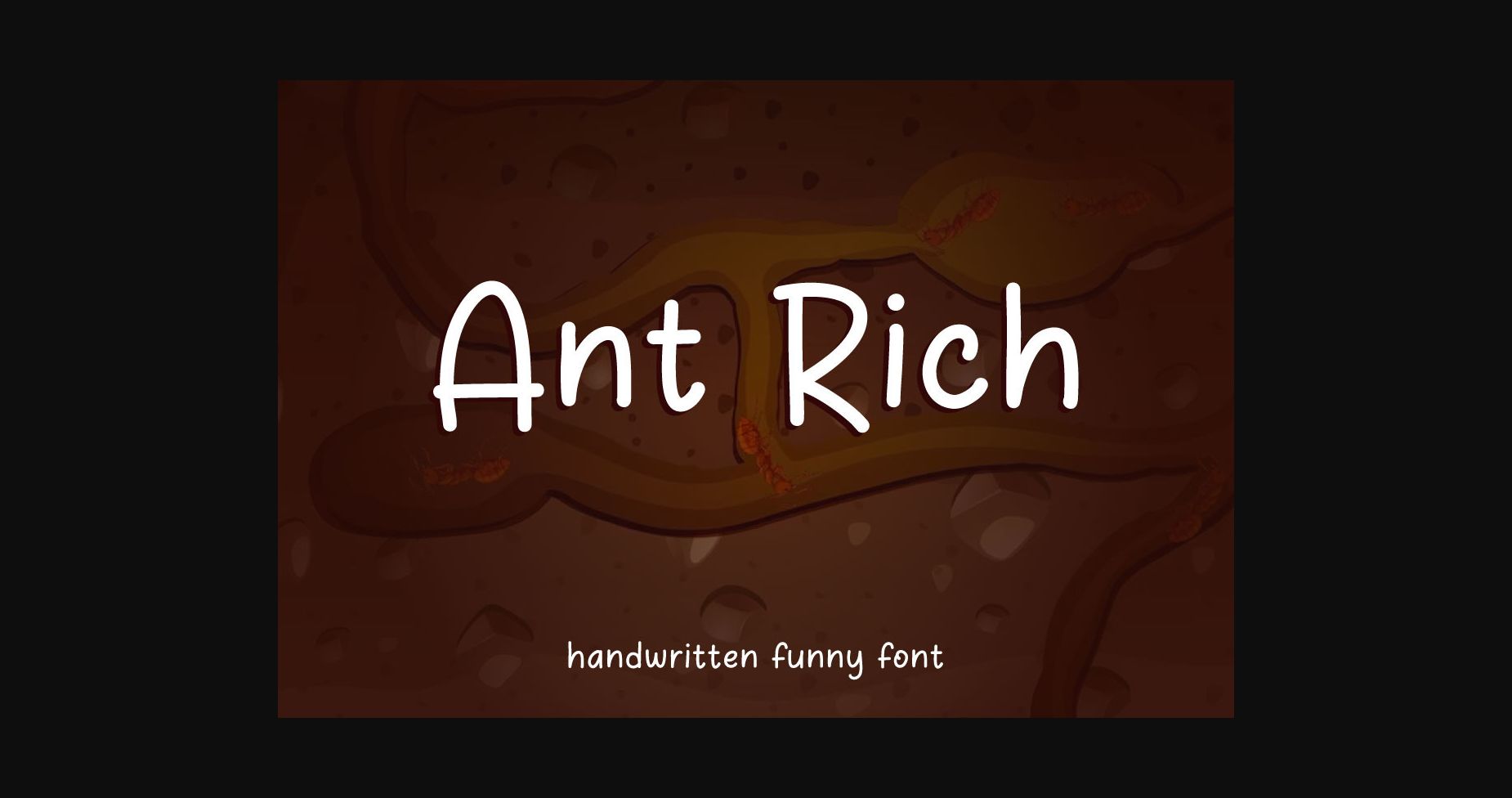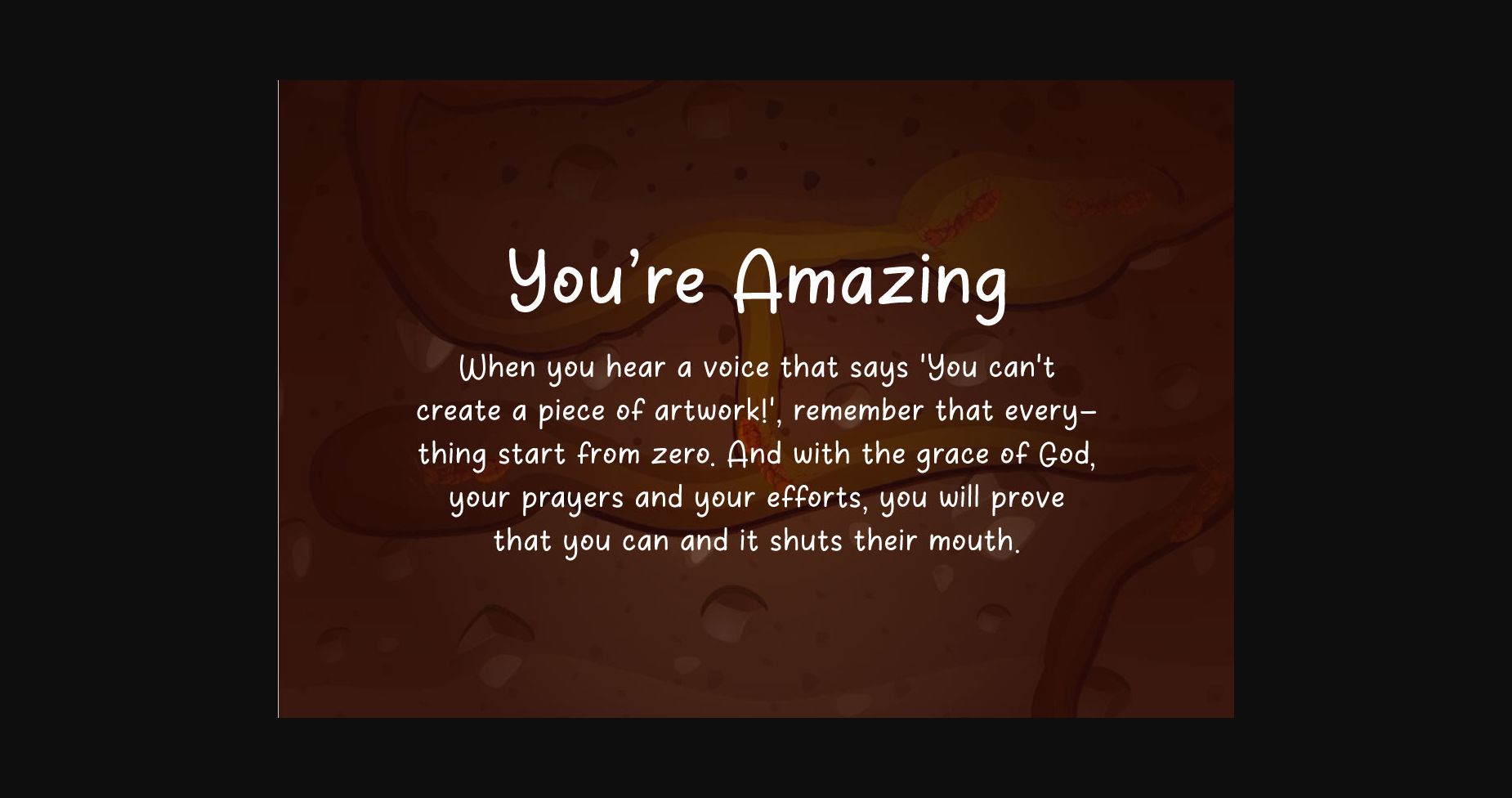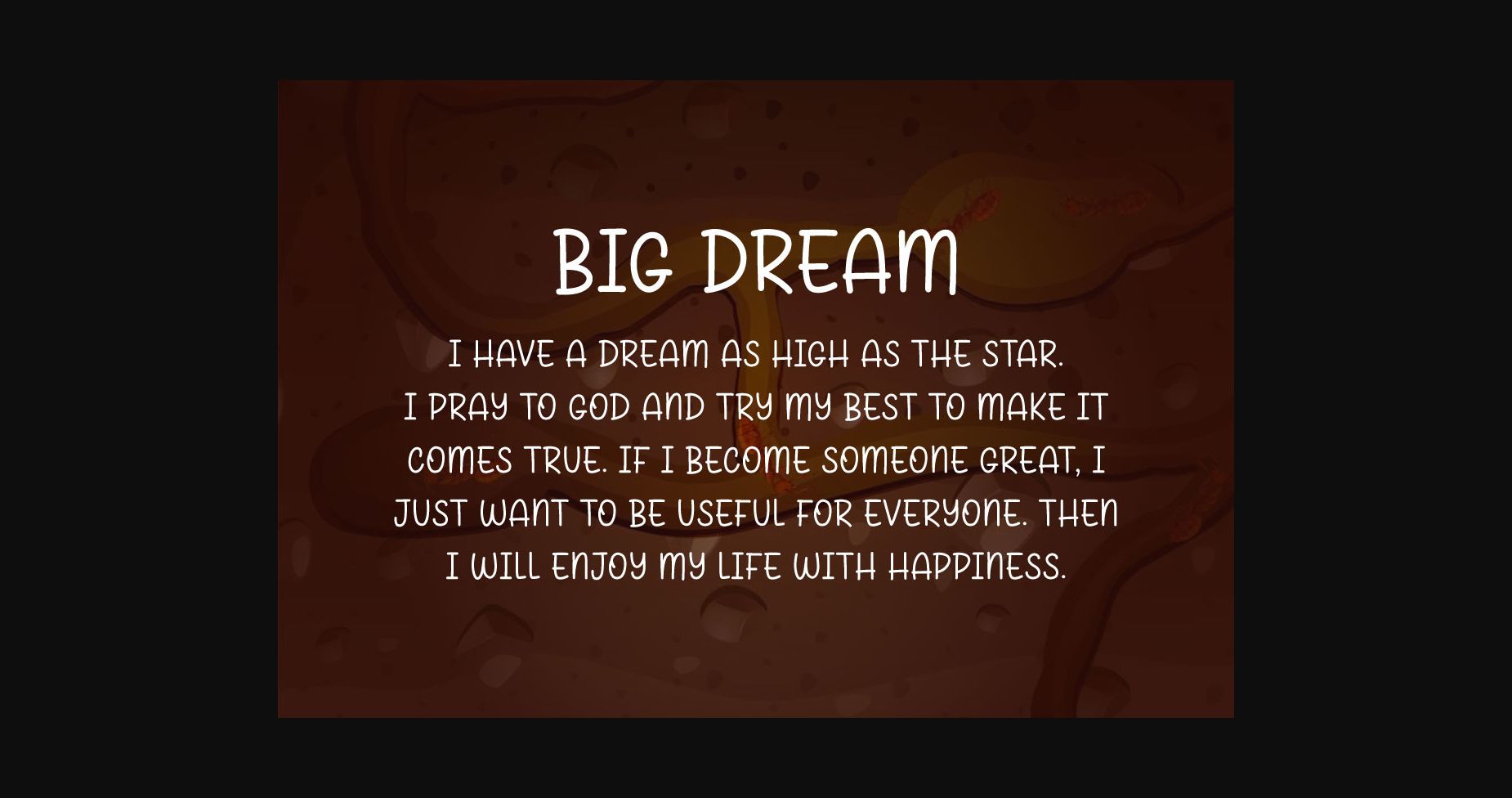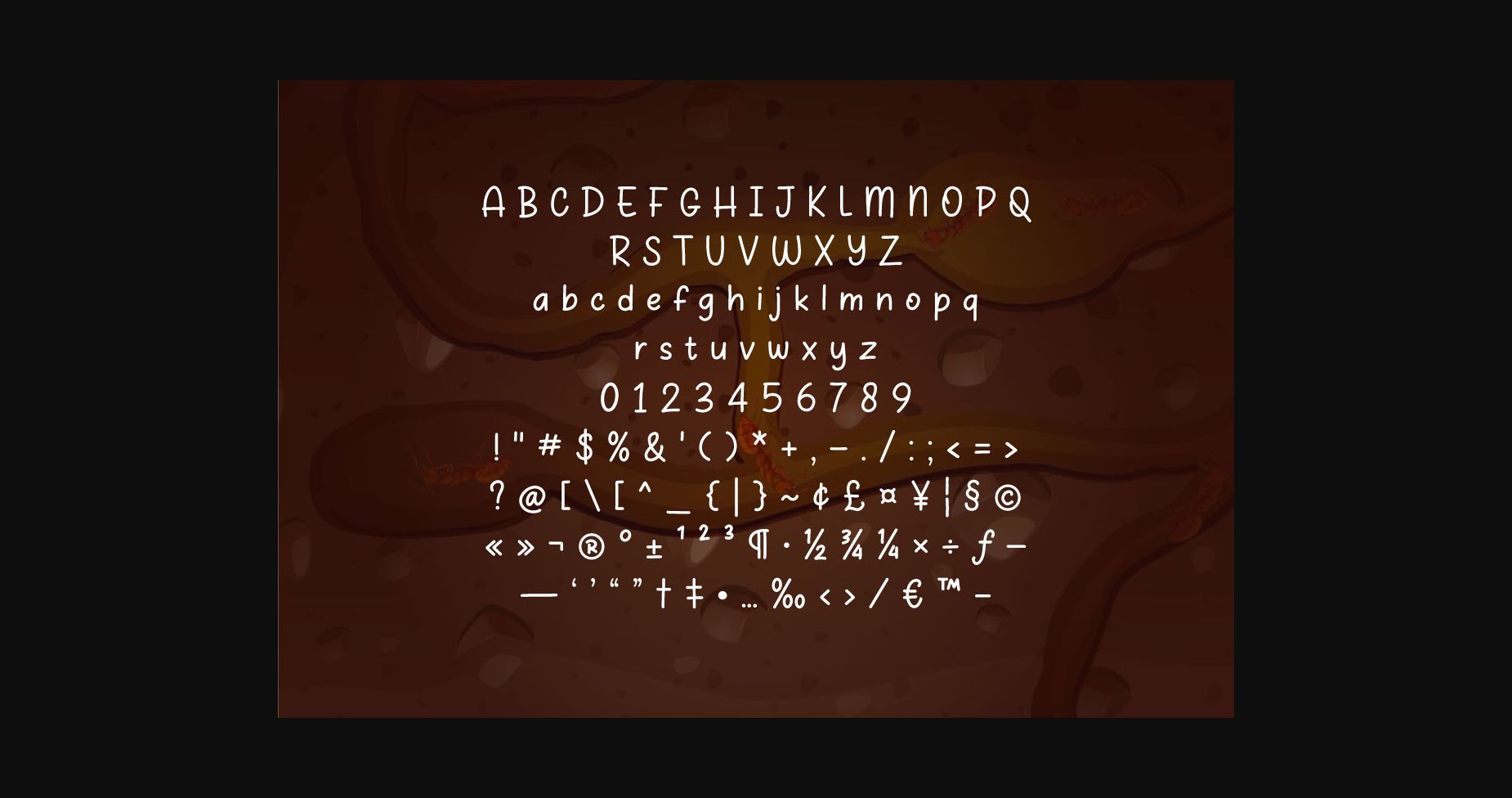
Ant Rich Font
About Ant Rich Font
Ant Rich is a captivating sans-serif font that exudes modernism and personality. With its unique hand-drawn design, each letter is intricately crafted to convey a sense of elegance and individuality. Perfect for invitations, branding, and social media, Luminous will make your designs stand out and shine.